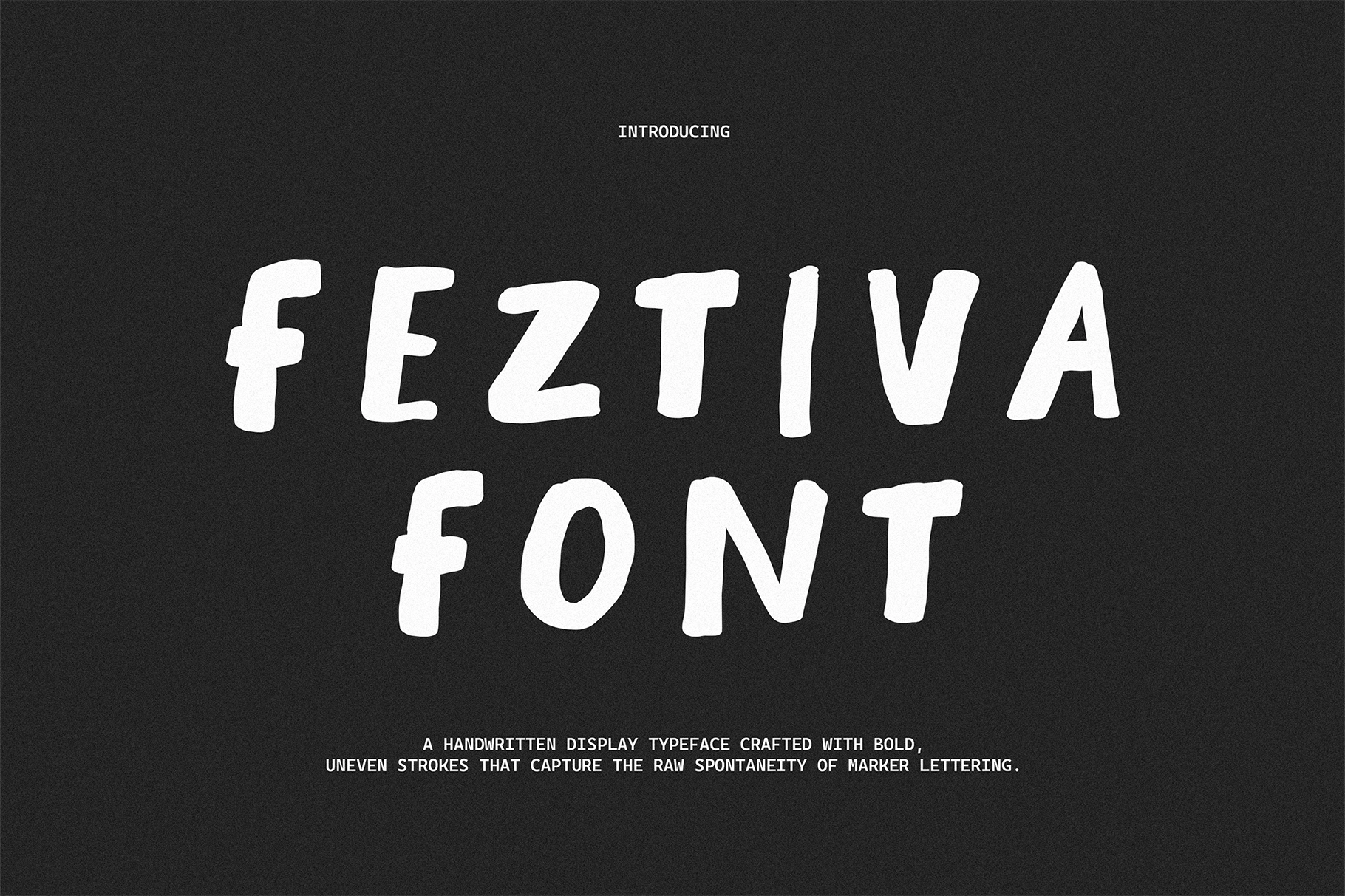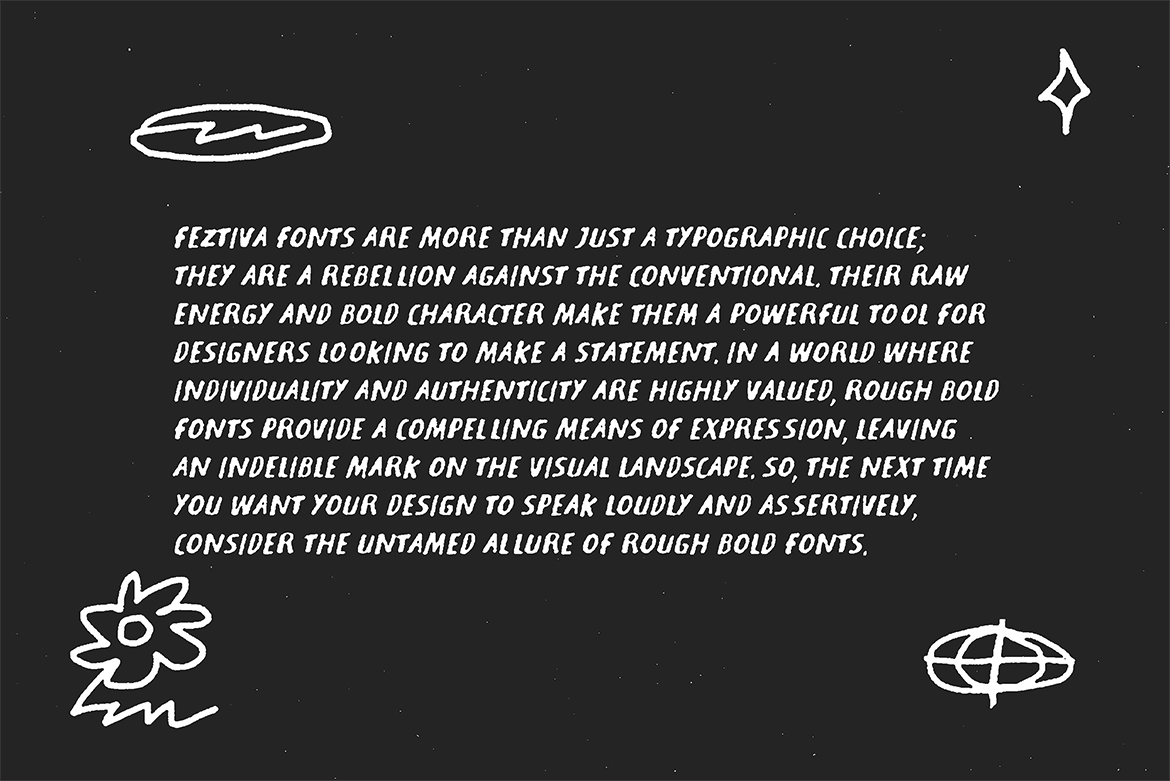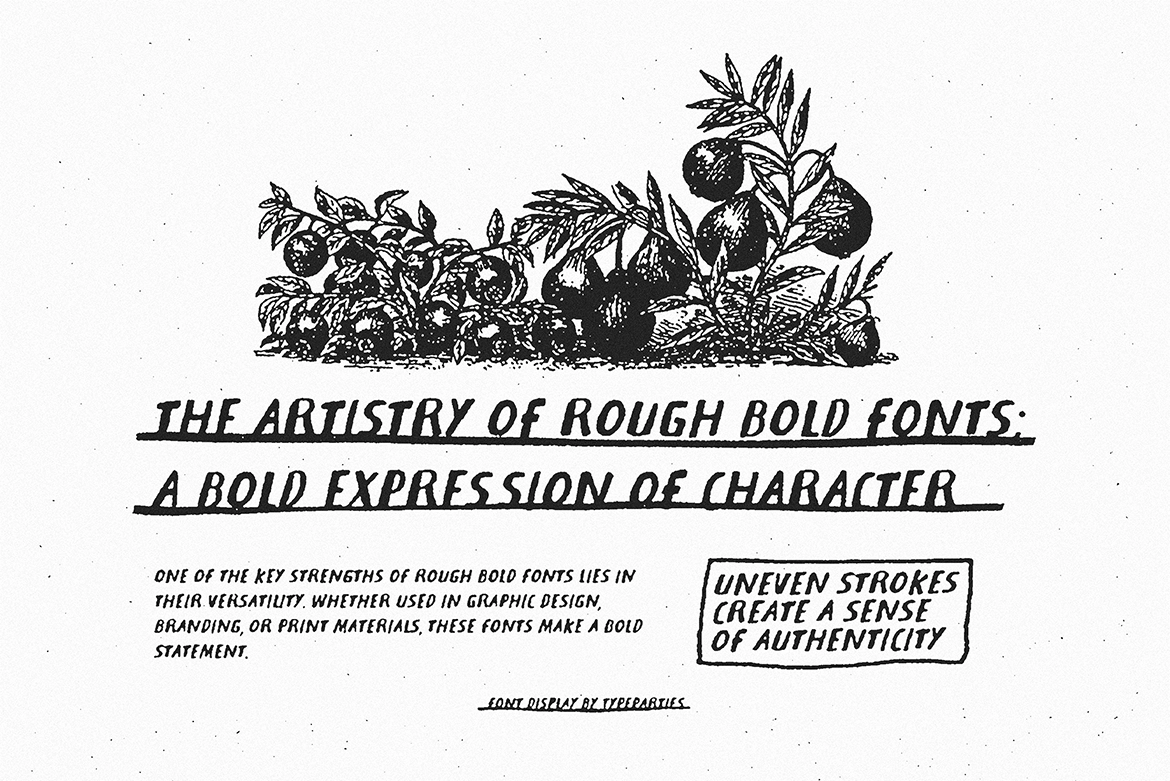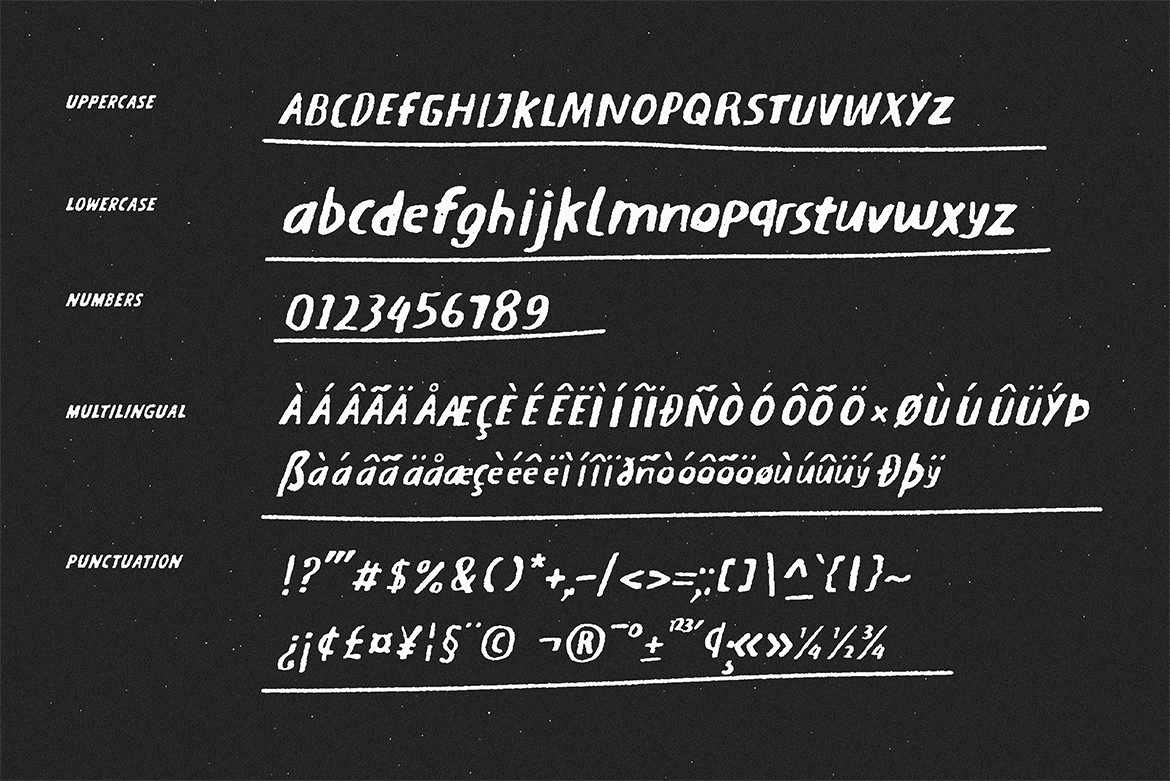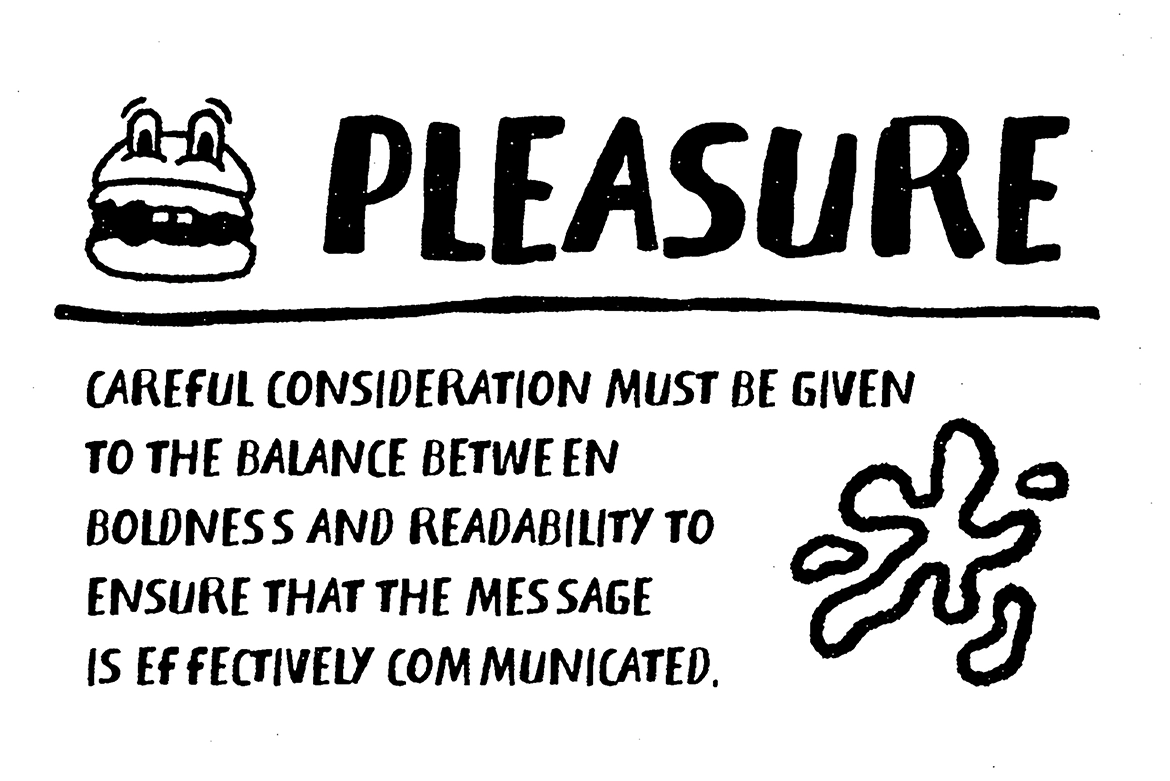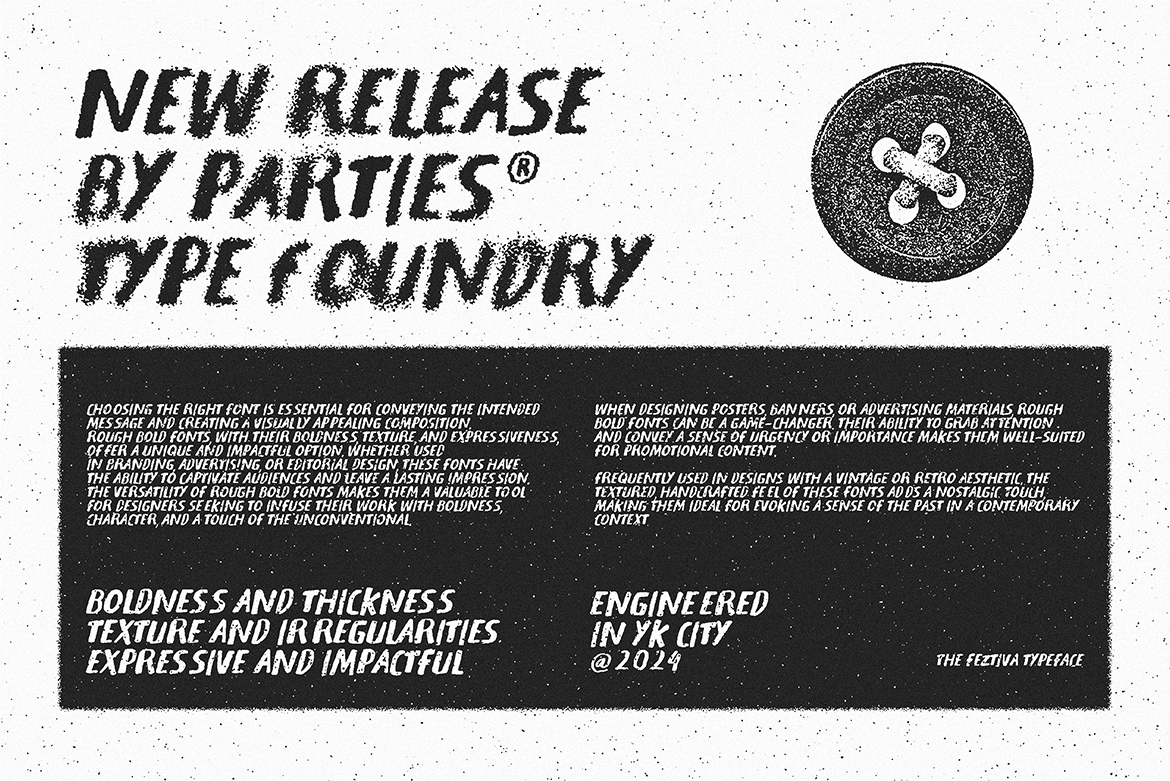
Feztiva - Rough Marker Font
Feztiva - Rough Marker Font delivers raw, hand-drawn energy with its distinctive marker-style texture and bold, imperfect strokes. This rough display typeface captures authentic marker pen grit while maintaining strong visual impact for creative projects that embrace character over perfection.
Designed for designers who prioritize personality, Feztiva excels in posters, stickers, streetwear graphics, album covers, and social media art where readability takes second place to artistic expression. Its organic, uneven edges create a genuine handcrafted feel perfect for rebellious branding and experimental typography.
Ideal for limited-run merchandise, festival posters, and urban street style designs that demand attention through their unpolished authenticity.